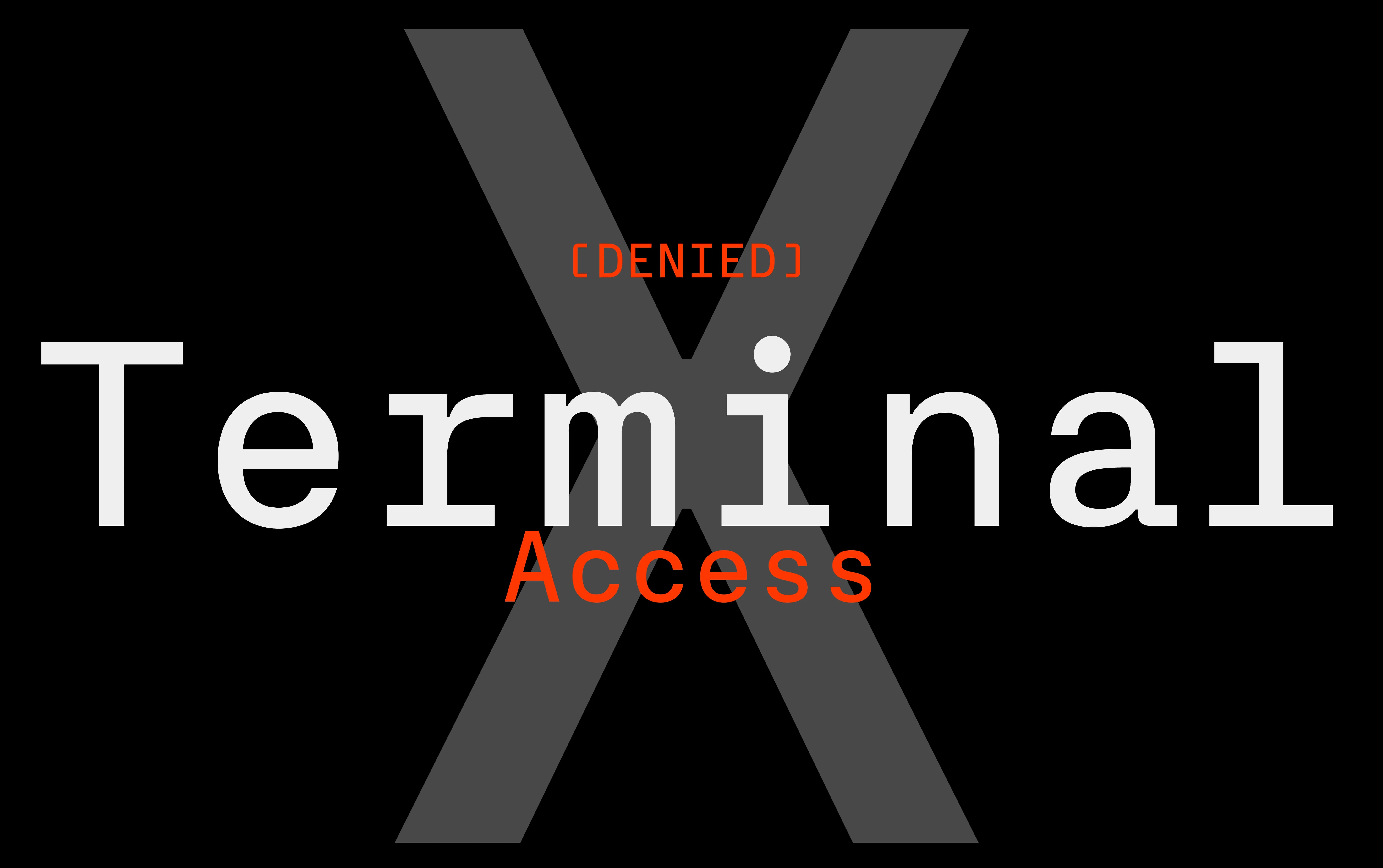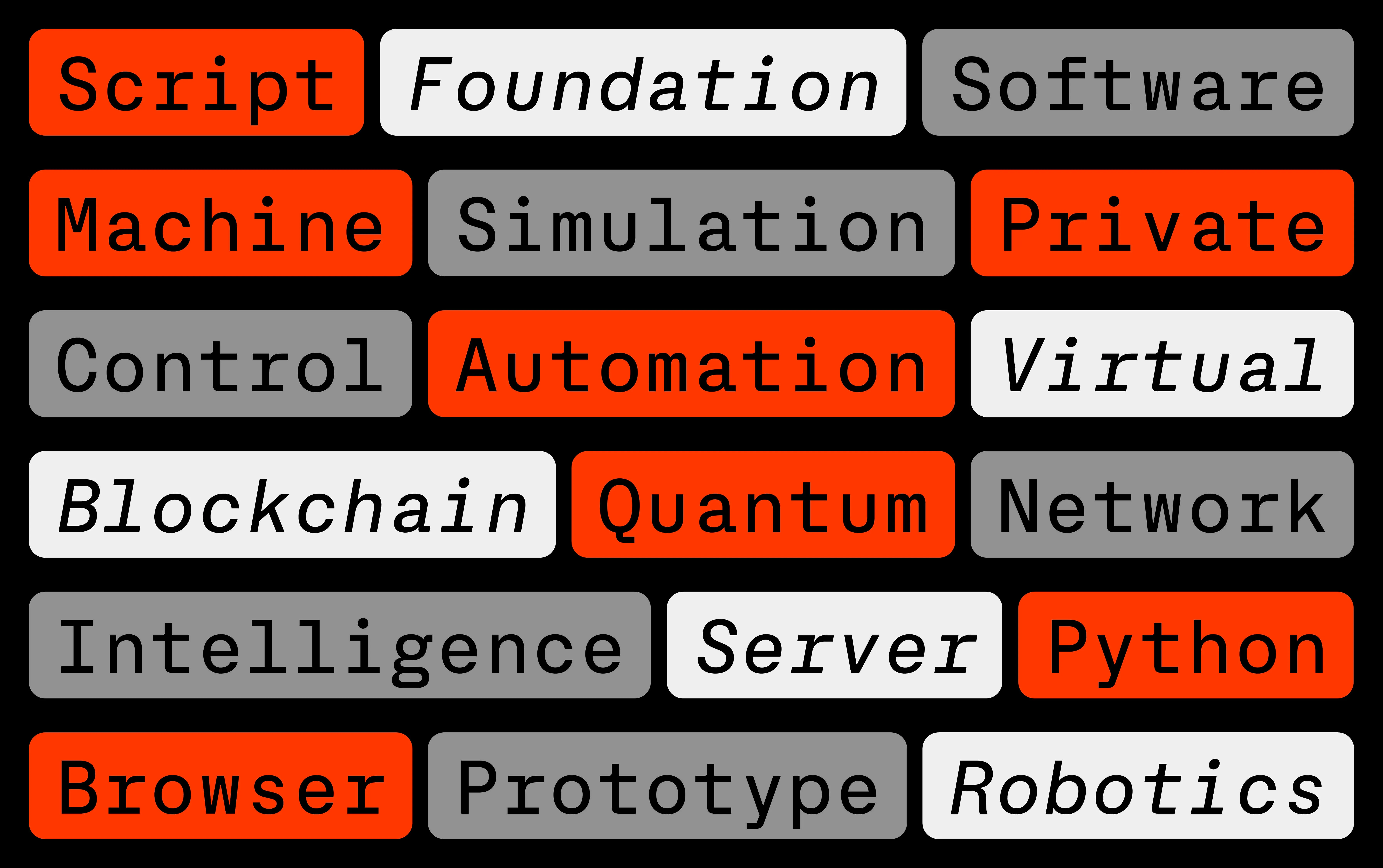
The brief
We were contacted by Jimmy Lee from the Internet Development Studio Company of Seattle to collaborate with him and his team to design a SIL font thought for web environments and more specifically code. The result is this amazing font website Jim designed https://servermono.com/ the font is downloadable, useable, and can be modified by anyone under the SIL license: https://github.com/internet-development/www-server-mono
The solution
In designing Server Mono, we drew inspiration from historical fonts like Apple's San Francisco Mono, ASCII art, while infusing our own modern sensibilities. We prioritized not just functionality but also how the font performs across a variety of viewing contexts—from coding environments to documentation and beyond. With its clean lines, predictable spacing, and orderly appearance, Server Mono delivers exceptional readability. This font is not just a tool but a nod to the storied tradition of monospaced typefaces, refined for today's diverse digital landscape.
Designing a monospace font for development and coding involves addressing several crucial aspects. The most important is readability. Developers spend countless hours looking at code, so it's vital that the font is easy to read over long periods. Each character needs to be distinct to avoid confusion—characters like "0" and "O," or "1" and "l," should be unmistakable from one another.
Uniformity is another key factor. A monospace font, by definition, assigns the same width to every character. This consistent spacing is essential for aligning code and making the structure clear at a glance. It helps developers quickly understand the hierarchy and organization within their code.
Attention to spacing and kerning is also critical. The font should have a balanced feel, with no awkward gaps or visual clutter that might disrupt the reading flow. It must maintain clarity across various screen resolutions and sizes, whether on a high-resolution monitor or a lower-resolution display.
Finally, the aesthetic quality of the font shouldn't be overlooked. While its primary function is to serve as a tool, it should also blend seamlessly with the coding environment. It needs to work well with syntax highlighting and color schemes commonly used by developers, ensuring that the font supports rather than distracts from the task at hand.
Creating a monospace font for coding is about finding the right balance between readability, uniformity, spacing, and aesthetics, all to enhance the developer's experience.
Server Mono continues the long tradition of monospace fonts, renowned for their versatility in command-line interfaces due to their clear readability and uniform character width. You'll notice our own preferences reflected in the design, as we value how it performs across various viewing contexts. Server Mono offers excellent readability and pairs well with its uniform, predictable, and orderly appearance.